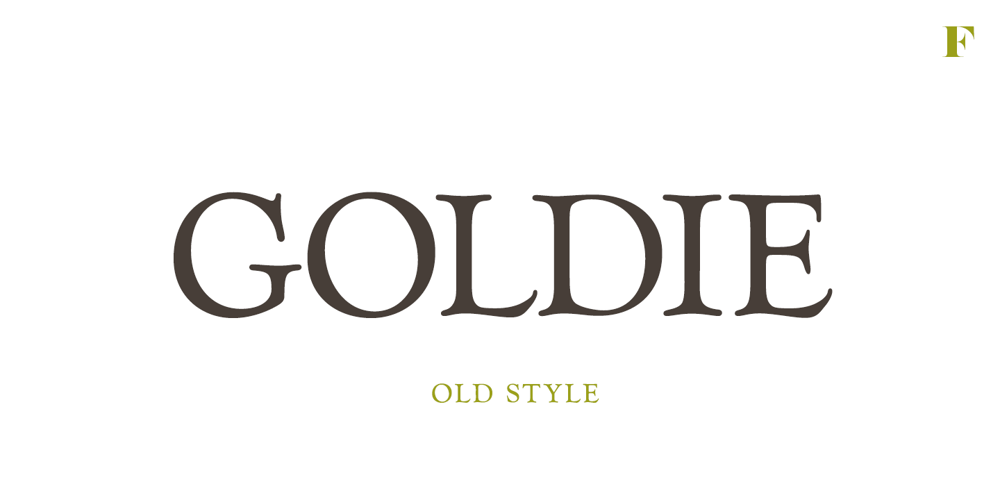
Goldie Old Style Font Family was designed by Emil Karl Bertell and published by Fenotype. Goldie Old Style contains 1 styles and family package options. As the name suggests, Goldie is an old-style serif typeface designed for striking headlines. Goldie has strong rounded serifs and a soft touch to it. It suits well to movie titles, novel covers, posters and so on, wherever you need a certain classic feeling and the font itself to act as an illustration.Goldie Old Style is easy to use to create nice strong headlines with character. In addition it’s equipped with 230 interlocking Discretionary Ligatures, Swash Alternates and a selection of common accented characters that are scaled down, so that they match the height of the rest of the font with the accent marks. These smaller accented characters are set in uppercase Stylistic Alternates.